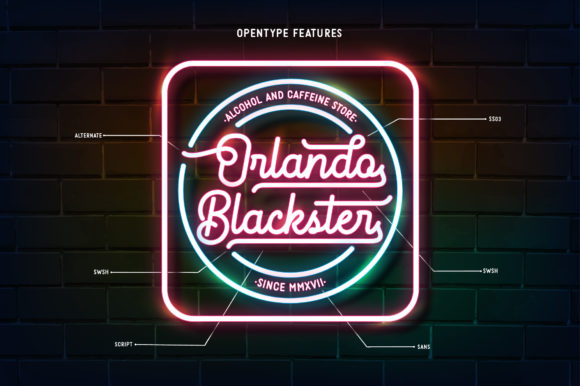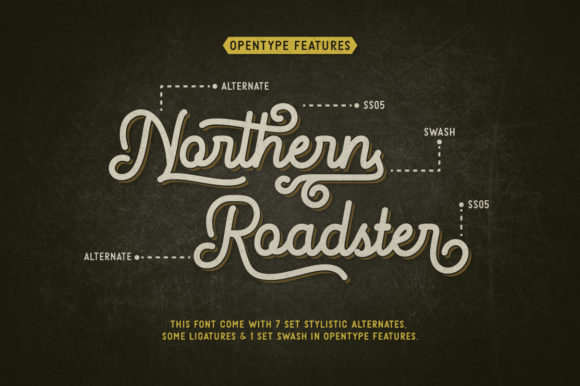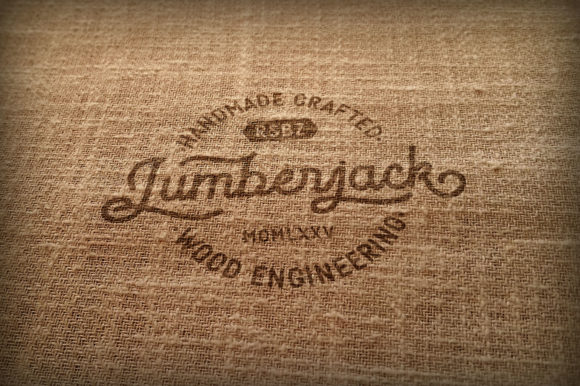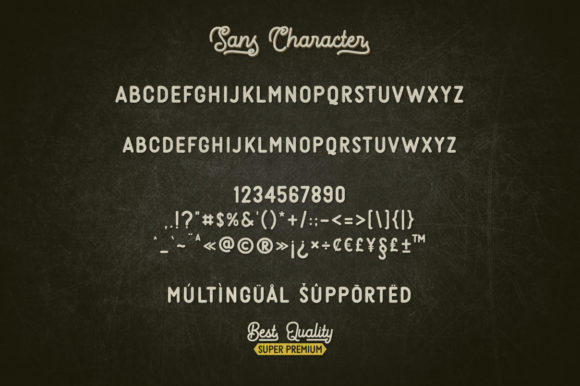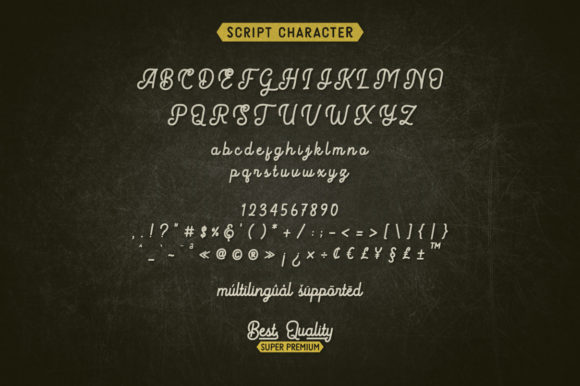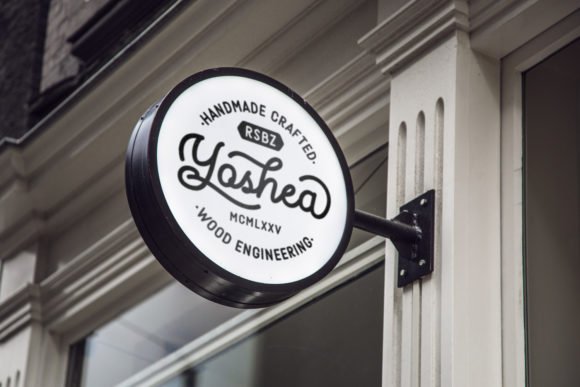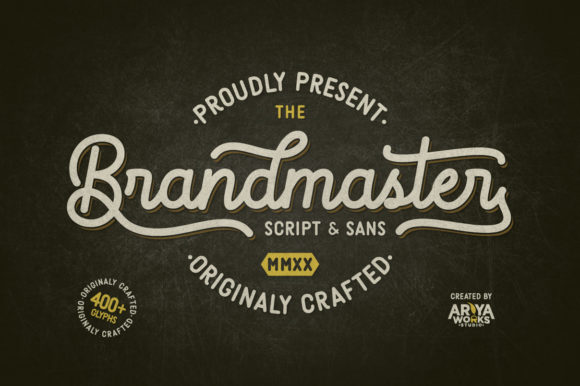
Introducing Brandmaster Font: Elevate Your Designs with a Cool and Vintage Twist
In the world of design, fonts play a crucial role in conveying the tone and personality of a brand. A well-chosen font can make all the difference in creating a lasting impression on your audience. If you’re a designer or craftsperson looking to add a unique touch to your creations, look no further than the Brandmaster Font. This duo font, consisting of a sans serif and script font, is a game-changer for anyone looking to elevate their designs with a cool and vintage flair.
The Perfect Combination: Sans Serif and Script Fonts
Brandmaster Font is a thoughtfully crafted duo font that combines the clean and modern look of a sans serif font with the elegance and sophistication of a script font. The sans serif font is perfect for headlines, titles, and short paragraphs of text, while the script font adds a touch of whimsy and personality to your designs. Whether you’re creating a logo, brochure, or social media graphics, this font combination has got you covered.
One of the standout features of Brandmaster Font is its versatility. No matter the topic or industry, this font can adapt to any style or tone. Whether you’re designing for a fashion brand, a tech startup, or a non-profit organization, Brandmaster Font will help you create stunning visuals that capture your audience’s attention. Its unique blend of modern and vintage elements makes it an incredibly asset to your font library.
Key Features of Brandmaster Font
- Cool and Vintage Style: Brandmaster Font boasts a unique blend of modern and vintage elements, making it perfect for designers looking to add a touch of nostalgia to their creations.
- Duo Font: The font comes with two styles: a sans serif font and a script font, allowing you to mix and match to create stunning visual combinations.
- Highly Versatile: Brandmaster Font can be used for a wide range of design projects, from logos and branding materials to social media graphics and presentations.
- Easily Readable: The sans serif font is clean and easy to read, making it perfect for body text, while the script font adds a touch of elegance to your designs.
Why Choose Brandmaster Font?
With so many fonts available, why choose Brandmaster Font? Here are just a few reasons why designers and craftspersons are raving about this font:
- Unique Style: Brandmaster Font offers a fresh and unique perspective on traditional font styles, making it perfect for designers looking to stand out from the crowd.
- Time-Saving: With its versatility and range of uses, Brandmaster Font saves you time and effort in finding the perfect font for your project.
- Professional Results: This font is designed to deliver professional-looking results, making it perfect for designers and craftspersons who want to elevate their creations.
Tips and Tricks for Using Brandmaster Font
To get the most out of Brandmaster Font, here are a few tips and tricks to keep in mind:
- Mix and Match: Experiment with different combinations of the sans serif and script fonts to create visually appealing designs.
- Play with Sizes: Use different font sizes to create visual hierarchy and add emphasis to your designs.
- Add a Pop of Color: Use Brandmaster Font in conjunction with bold colors to add a pop of personality to your designs.
In conclusion, Brandmaster Font is a game-changer for designers and craftspersons looking to elevate their creations with a cool and vintage twist. Its unique blend of modern and vintage elements, versatility, and range of uses make it an incredibly asset to your font library. Whether you’re designing for a fashion brand, tech startup, or non-profit organization, Brandmaster Font is the perfect choice for creating stunning visuals that capture your audience’s attention.